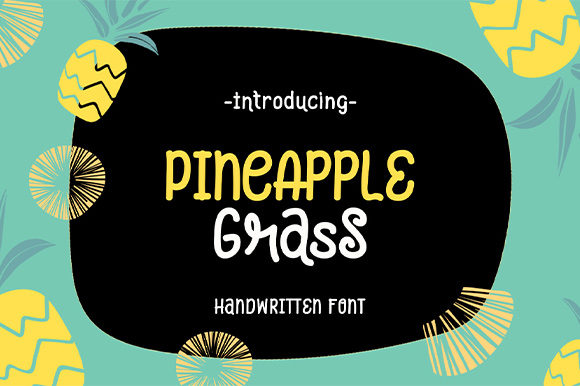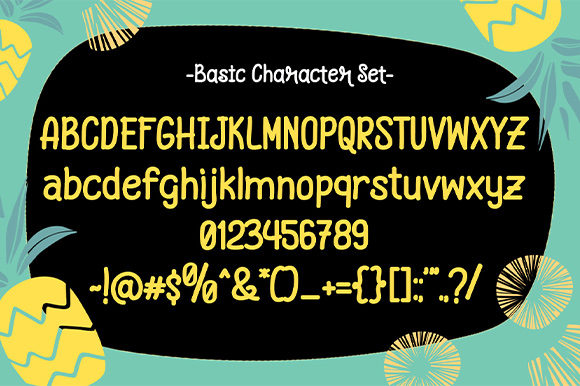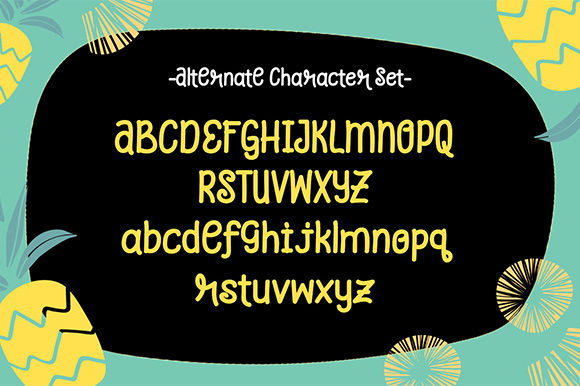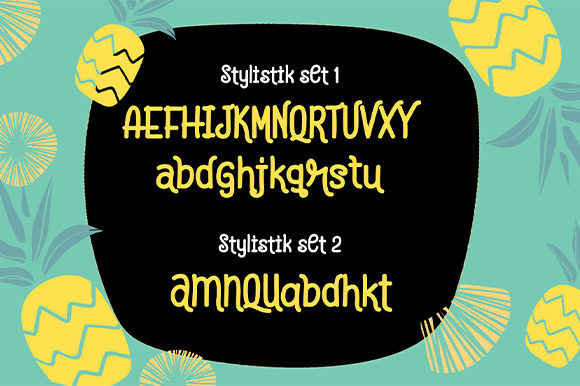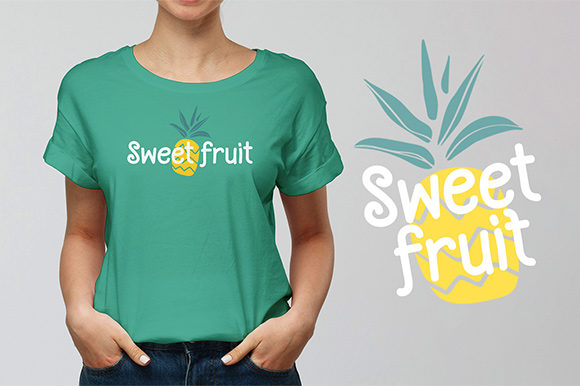
Pineapple Grass Font
About Pineapple Grass Font
Pineapple Grass is a sweet handwritten font, carefully handcrafted to become a true favorite. Its casual charm makes it appear wonderfully down-to-earth, readable and, ultimately, incredibly versatile. Pineapple Grass will look outstanding in any context, whether it’s being used on busy backgrounds or as a standalone headline!